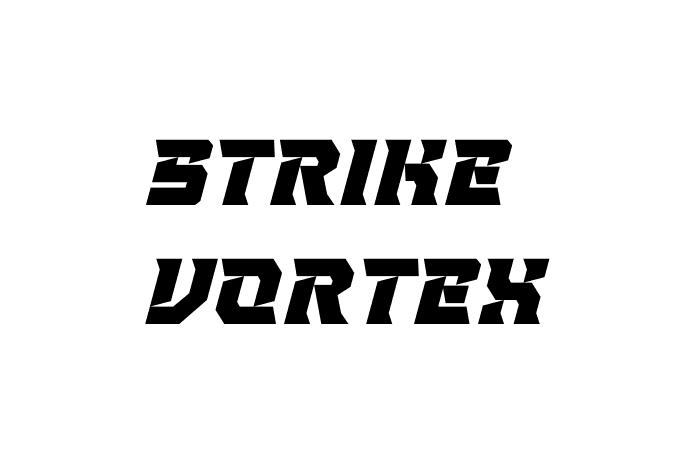
Masterpiece Regular
Introducing the modern Masterpiece Regular Font, is a cool and Regular Sci-fi techno looking display Font This font is ideal for writing web designs, business cards, or pretty much anything else that requires a unique touch, this font designed by siinsticker is available for free download and personal use.
Font designer siinsticker
Typeface classification Sci-fi,Techno